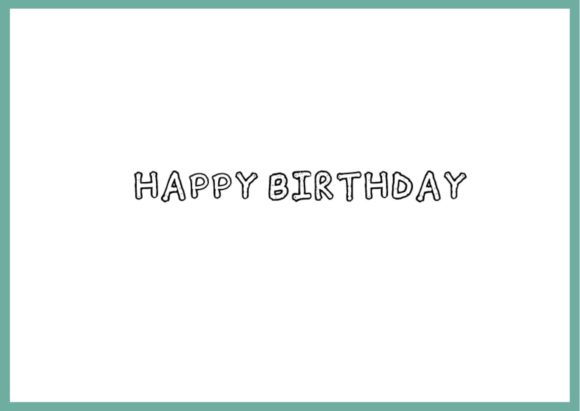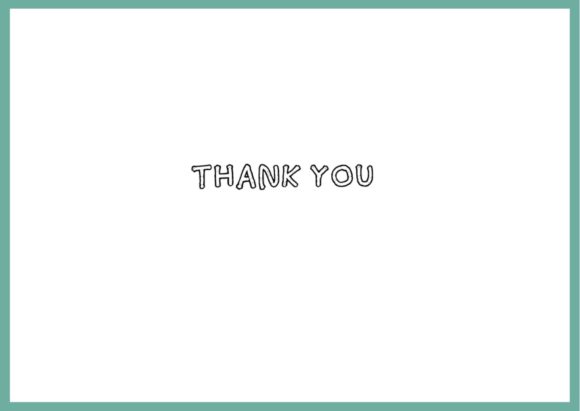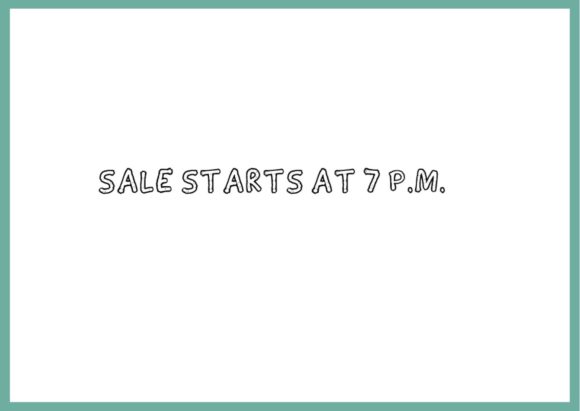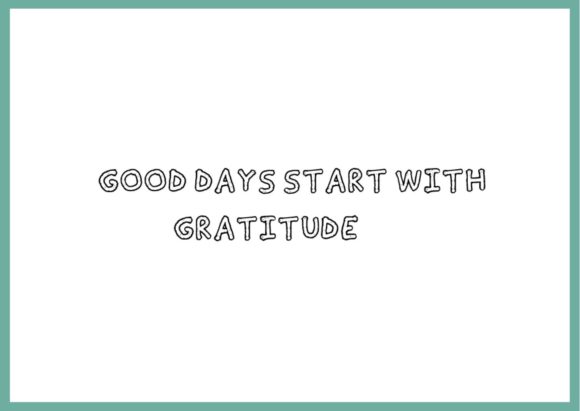
Have you ever stared at a blank page, waiting for the perfect font to spark your creativity? The blank page stares back, and you’re left wondering where to start. That’s where the Black White Bubble Font comes in – a game-changer that can turn your ideas into stunning visual masterpieces.
This cool and versatile display font is designed to elevate any creation, regardless of the topic. Whether you’re working on a project for a fashion brand, a tech startup, or a social cause, the Black White Bubble Font has the potential to add a touch of sophistication and style. As a valuable addition to your fonts’ library, it’s a must-have for designers looking to take their work to the next level.
Key Features of Black White Bubble Font
- Font Style: Black and white bubble font with a unique, playful design.
- Unique Characteristics: The bubble font’s distinctive black and white design creates a visually appealing contrast, perfect for adding a touch of whimsy to text-based content.
- Legibility: Despite its playful design, the font remains highly legible, making it suitable for body text, headings, and titles.
Black White Bubble Font Review
First impressions matter, and the Black White Bubble Font makes a statement ✨. The clean, minimalist design and bold lines create a sense of sophistication and modernity. The font’s versatility shines through, making it suitable for various applications, from digital interfaces to print materials.
Here are some of the font’s strengths:
- High contrast between black and white, making it highly readable.
- Simple, geometric shapes create a sense of balance and harmony.
However, there are some limitations to consider ⚠️:
- The font may not be suitable for projects requiring a lot of text, as it can be overwhelming.
- The simplicity of the design may make it less effective for conveying complex information.
- The font’s bold lines may not be ideal for projects requiring a lot of fine details.
Overall, the Black White Bubble Font is a solid choice for designers looking for a modern, minimalist aesthetic. While it may not be suitable for every project, its versatility and high contrast make it a great option for a wide range of applications.
Use the Black White Bubble Font to create visually striking headlines and titles.
Combine the font with bold colors and graphics to make your design stand out.
Experiment with different font sizes and styles to add depth and interest to your design.
Use the Black White Bubble Font for social media graphics, blog posts, and advertisements.
Apply the font to your business logo or branding materials for a unique and eye-catching look.
Use the font to create engaging presentations and reports that grab the audience’s attention.
Alternatives to Black White Bubble Font
Comic Sans MS is a playful, informal font suitable for casual designs, advertisements, and children’s materials. It is more rounded and childlike compared to Black White Bubble Font, which has a more modern and sleek appearance. Use Comic Sans MS when you want to add a lighthearted and approachable tone to your design.
Pacifico is a modern script font with a relaxed and elegant feel. It is more suitable for luxury, fashion, and travel designs. Compared to Black White Bubble Font, Pacifico has a more sophisticated and refined appearance. Use Pacifico when you want to convey a sense of high-end quality and sophistication.